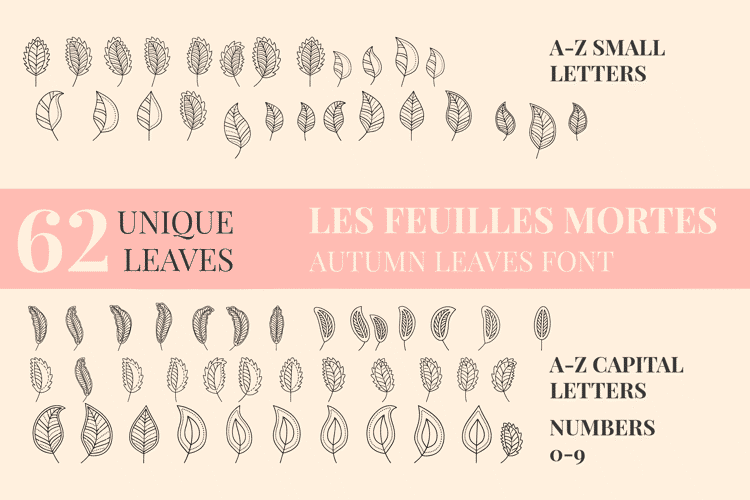
Autumn Leaves Font
๐จ Font Name: Autumn Leaves by Minimalist Art Studio
๐จ Font Description: Autumn Leaves is a decorative dingbats font with 62 unique leaf designsโperfect for seasonal branding, nature-themed packaging, and cozy editorial layouts.